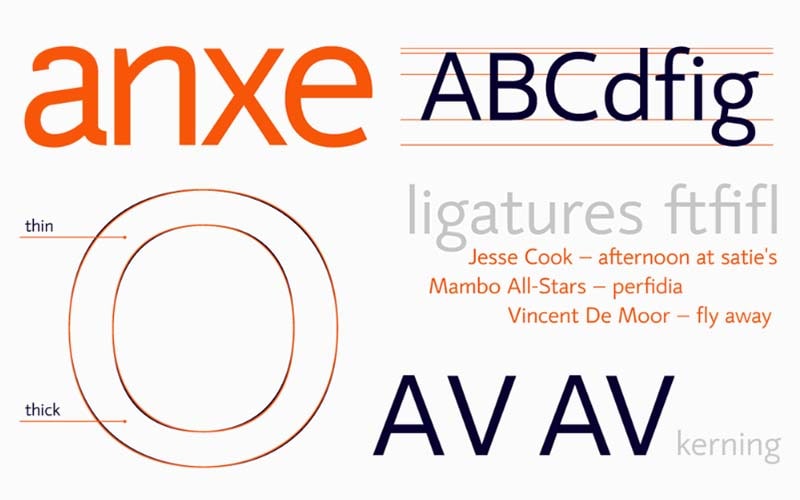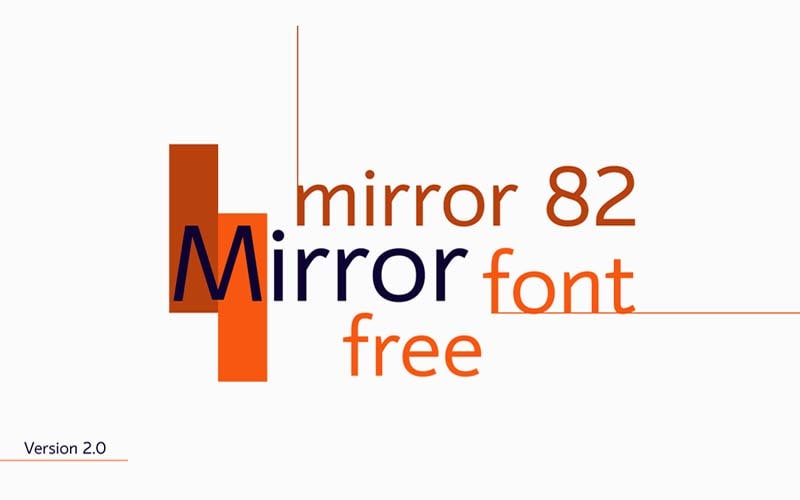
Today introduce a new style font called Mirror 82 Font. This is a basic, sans serif, and geometric typeface that is popular due to its modern appearance. This font was created by Igor Kosinsky.
This free font consists of only one weight including regular. It has a gentile flower, a combination of sans serif and antique, calligraphy, and a prominent and special design that looks unique.
This is ideal for various purposes such as you can use it to create unique text or design in graphic designing, use it in adobe photoshop, fashion designing, branding logos, business card designs, and much more.
Therefore, due to its excellent appearance, many designers use it in their projects. because it is a great tool to give any unique look. It has contained all upper case, lower case, numbers, and punctuation.
Mirror 82 Font
It is a very large, geomatic typeface with fully developed glypes. Extremely it’s around slim stroke edges that express an exceptionally clear texture with amazing readability.
It features exceptional capabilities on large screens and can be used as a typewriter displaying logos or titles. Each letter has softness around the edges and a strong posture.
Therefore, these features make them unique. So if you are from any part of the world then chances are you can use it in your work and also it is free for personal and commercial use.